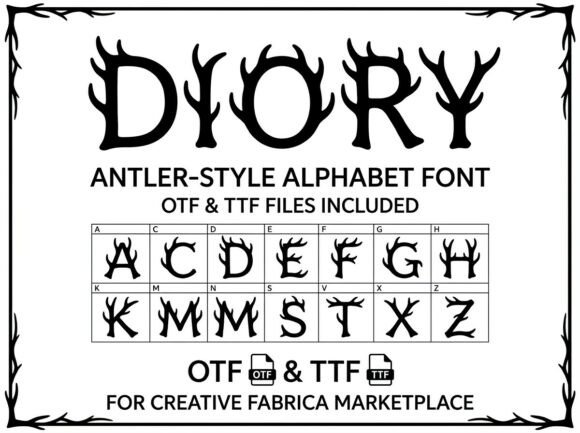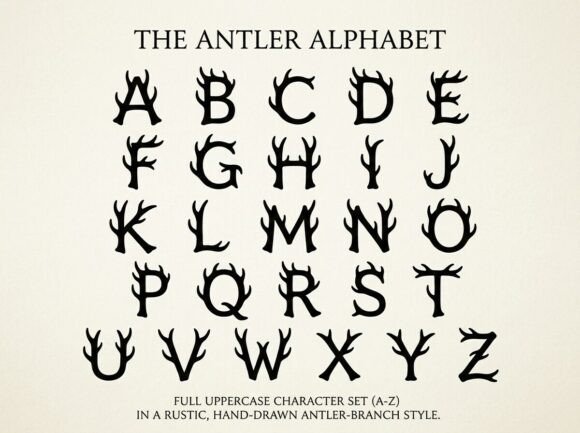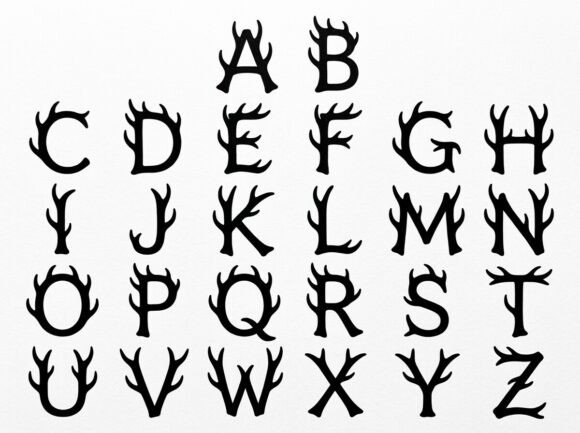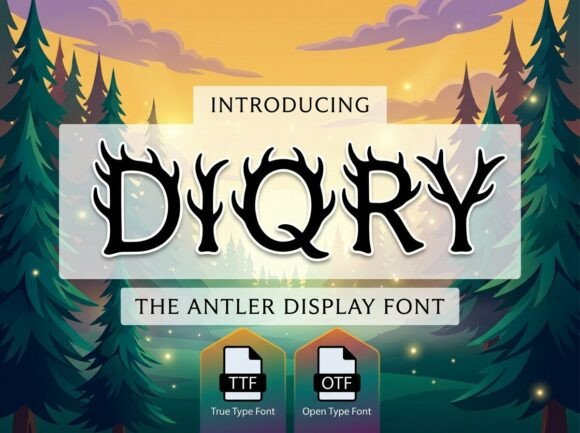
Unlock the Rugged Elegance of the Wilderness with Diory Font
Are you a designer or crafter looking for a font that captures the essence of the great outdoors? Look no further than Diory, a premium display font inspired by the organic branching of deer antlers. With its unique blend of sharp, rhythmic tines and sweeping, calcified curves, Diory is the perfect choice for outdoor adventure branding, hunting lodge logos, rustic home decor labels, and winter-themed event headers.
The Inspiration Behind Diory
Diory’s design is rooted in the natural world, drawing inspiration from the intricate branching of deer antlers. Each character features sharp, rhythmic tines and sweeping, calcified curves that create a powerful, forest-inspired silhouette. The result is a font that exudes a sense of primeval strength and polished, woodland beauty.
Key Features of Diory Font
- Unique Branching Design: Diory’s characters feature sharp, rhythmic tines and sweeping, calcified curves that create a powerful, forest-inspired silhouette.
- Balance of Structure and Wildness: The balance between Diory’s solid structural stems and wild, asymmetrical points makes it an extraordinary choice for a wide range of design applications.
- Premium Display Font: Diory is a premium display font designed to make a statement, perfect for outdoor adventure branding, hunting lodge logos, rustic home decor labels, and winter-themed event headers.
Design Applications for Diory Font
Diory’s versatility makes it an excellent choice for a wide range of design applications, including:
- Outdoor Adventure Branding: Use Diory to create bold, eye-catching logos for outdoor gear companies, hiking trails, or national parks.
- Hunting Lodge Logos: Add a touch of rustic elegance to your hunting lodge logo with Diory’s unique branching design.
- Rustic Home Decor Labels: Use Diory to create charming labels for rustic home decor products, such as wooden signs, lanterns, or candles.
- Winter-Themed Event Headers: Create festive and inviting event headers for winter-themed events, such as ski resorts, holiday markets, or snow festivals.
Why Choose Diory Font?
So why choose Diory font for your next design project? Here are just a few reasons:
- Unique and Memorable: Diory’s unique branching design makes it a memorable and distinctive font that will set your design apart from the rest.
- Versatile: Diory’s versatility makes it suitable for a wide range of design applications, from outdoor adventure branding to rustic home decor labels.
- High-Quality: As a premium display font, Diory is designed to deliver high-quality results, with crisp and clear lines that will look great in any design.
In conclusion, Diory font is a premium display font that unlocks the rugged elegance of the wilderness, perfect for designers and crafters looking to add a touch of the great outdoors to their designs. With its unique branching design, balance of structure and wildness, and versatility, Diory is an excellent choice for outdoor adventure branding, hunting lodge logos, rustic home decor labels, and winter-themed event headers. So why wait? Try Diory font today and bring a sense of primeval strength and polished, woodland beauty to your designs!